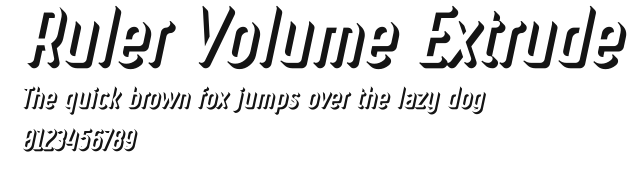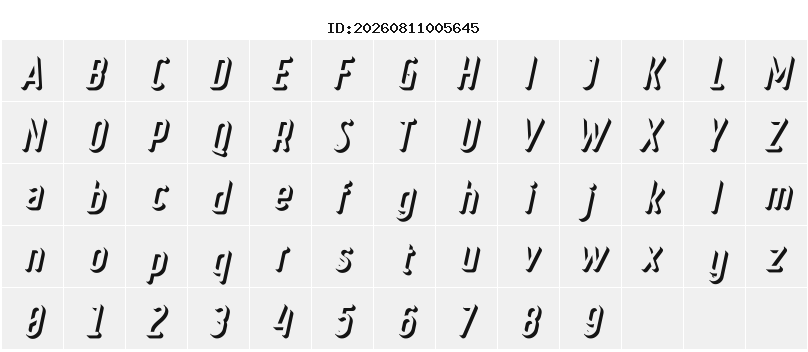
• Font Name: Ruler Volume Extrude
• Font Style: Gras Italique
• Full Font Name: Ruler Volume Extrude Bold Italic
• Designer: Levi Szekeres
• Manufacturer: Levi Szekeres
• Description: Ruler Font
Ruler Volume Extrude.ttf is a modern, elegant sans-serif font designed for ultimate readability and visual harmony. Perfect for branding, headlines, web design, and print materials.